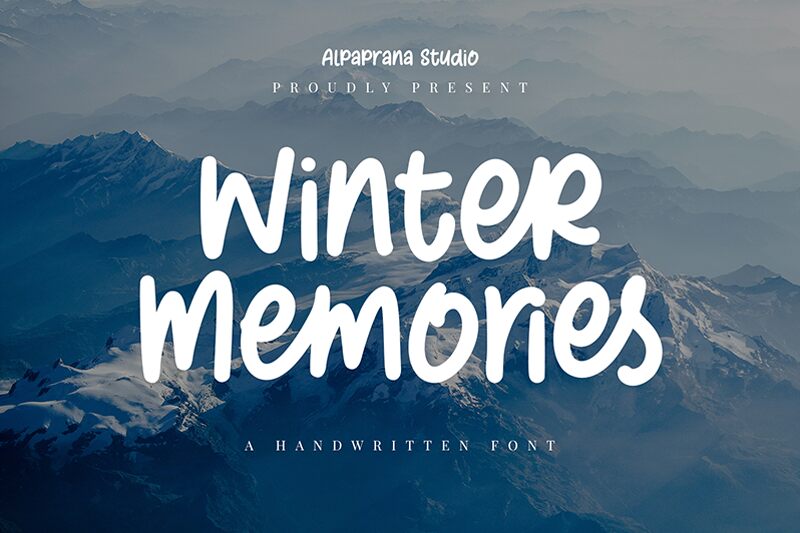
Winter Memories
Winter Memories, a delightful handwritten font crafted by the talented designers at Alpaprana Studio, evokes the nostalgic charm of frosty winter days. Its fluid, organic strokes seamlessly blend together, creating a warm, personalized aesthetic that invites the viewer to step into a realm of cherished memories.
The font's effortless elegance and expressive nature make it an ideal choice for a variety of design applications, from invitations and greeting cards to branding and editorial layouts. Whether used for a cozy holiday theme or a whimsical, nature-inspired project, Winter Memories effortlessly blends form and function, infusing each composition with a touch of timeless allure.
Its versatile appeal ensures that this font will become a treasured addition to any designer's toolkit, capturing the essence of winter's enchanting beauty.